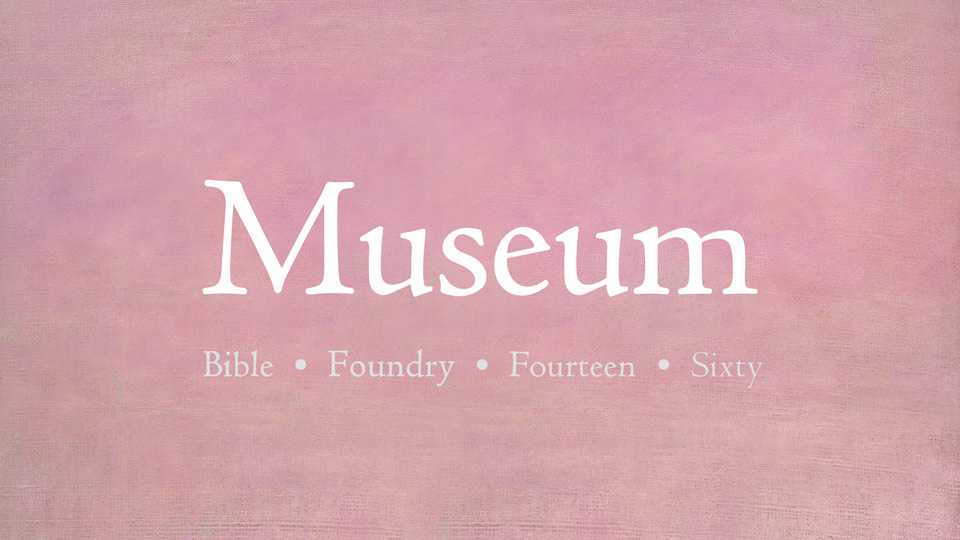
Download Museum typeface, an old style serif font family available in four styles, based on historical metal Centaur fonts, taken from different sources.
Designer: Raph Levien